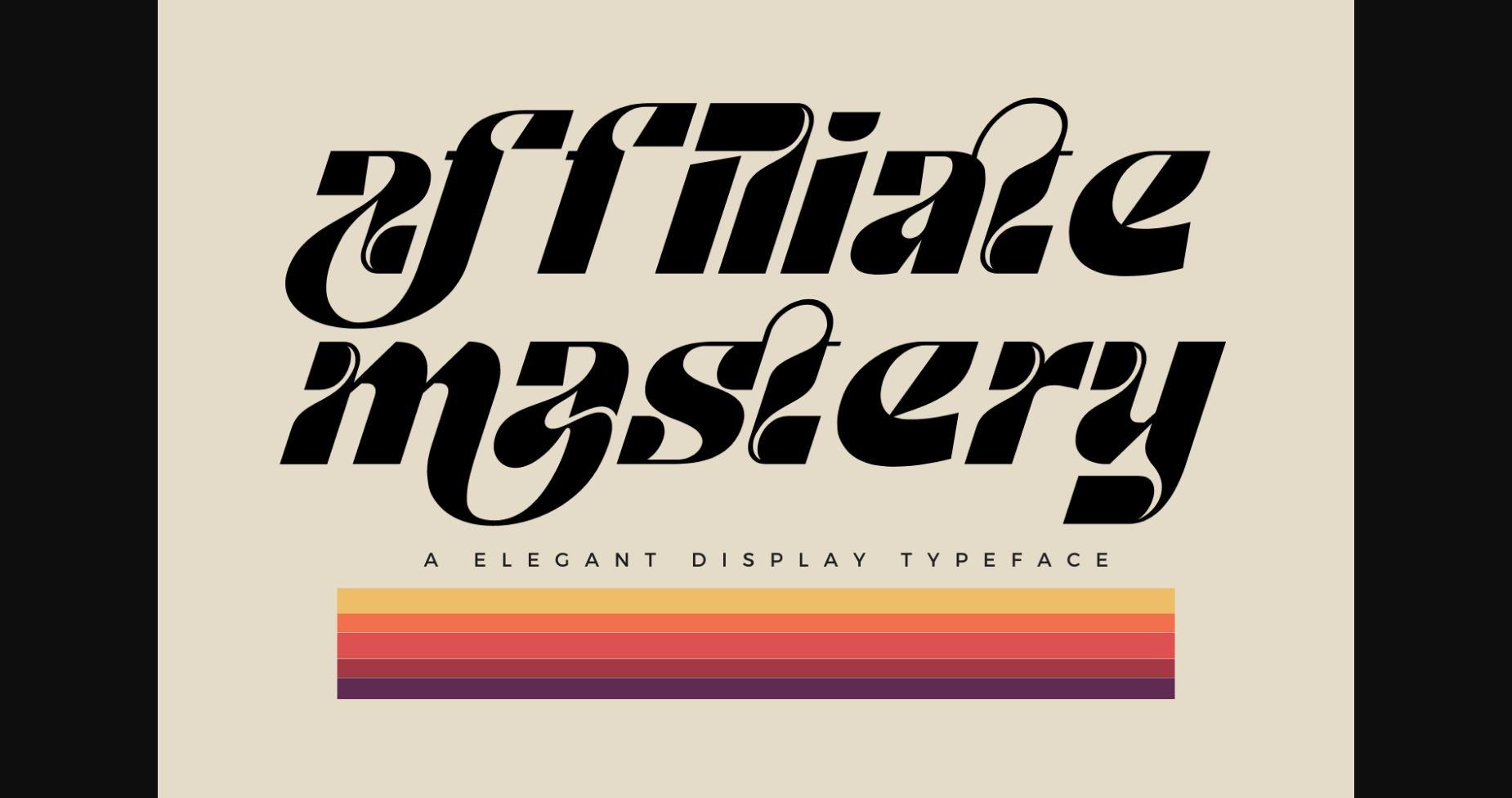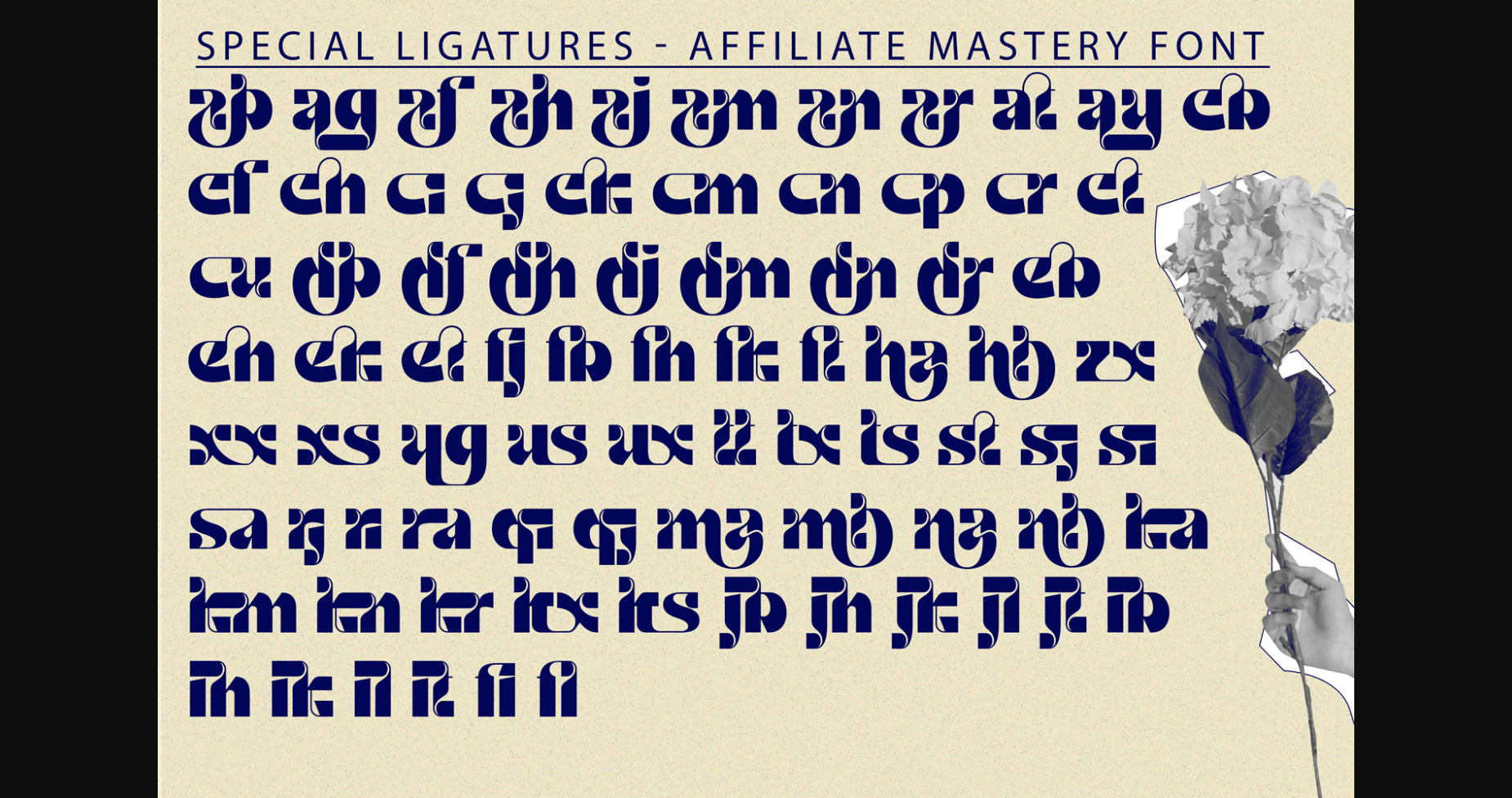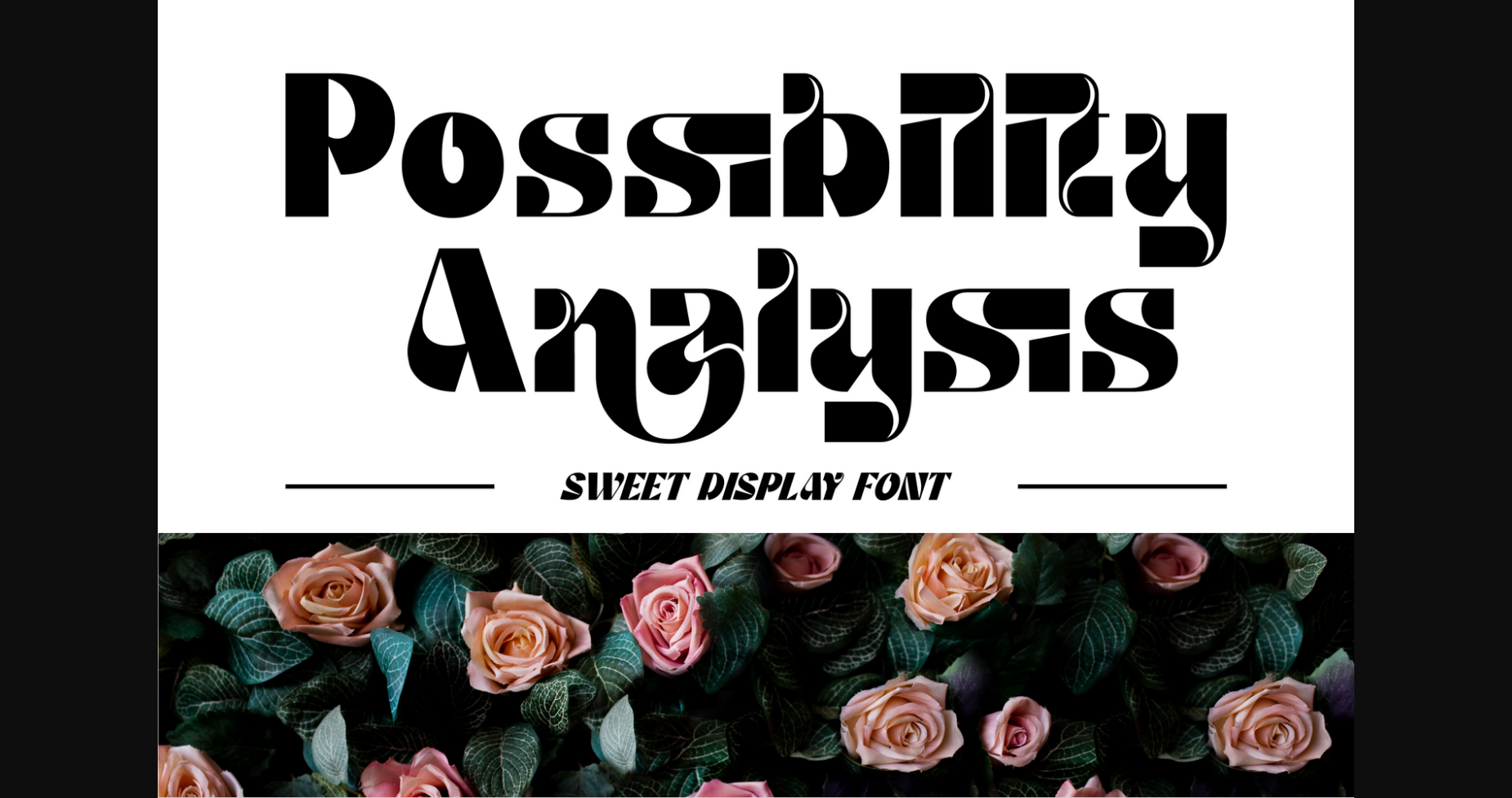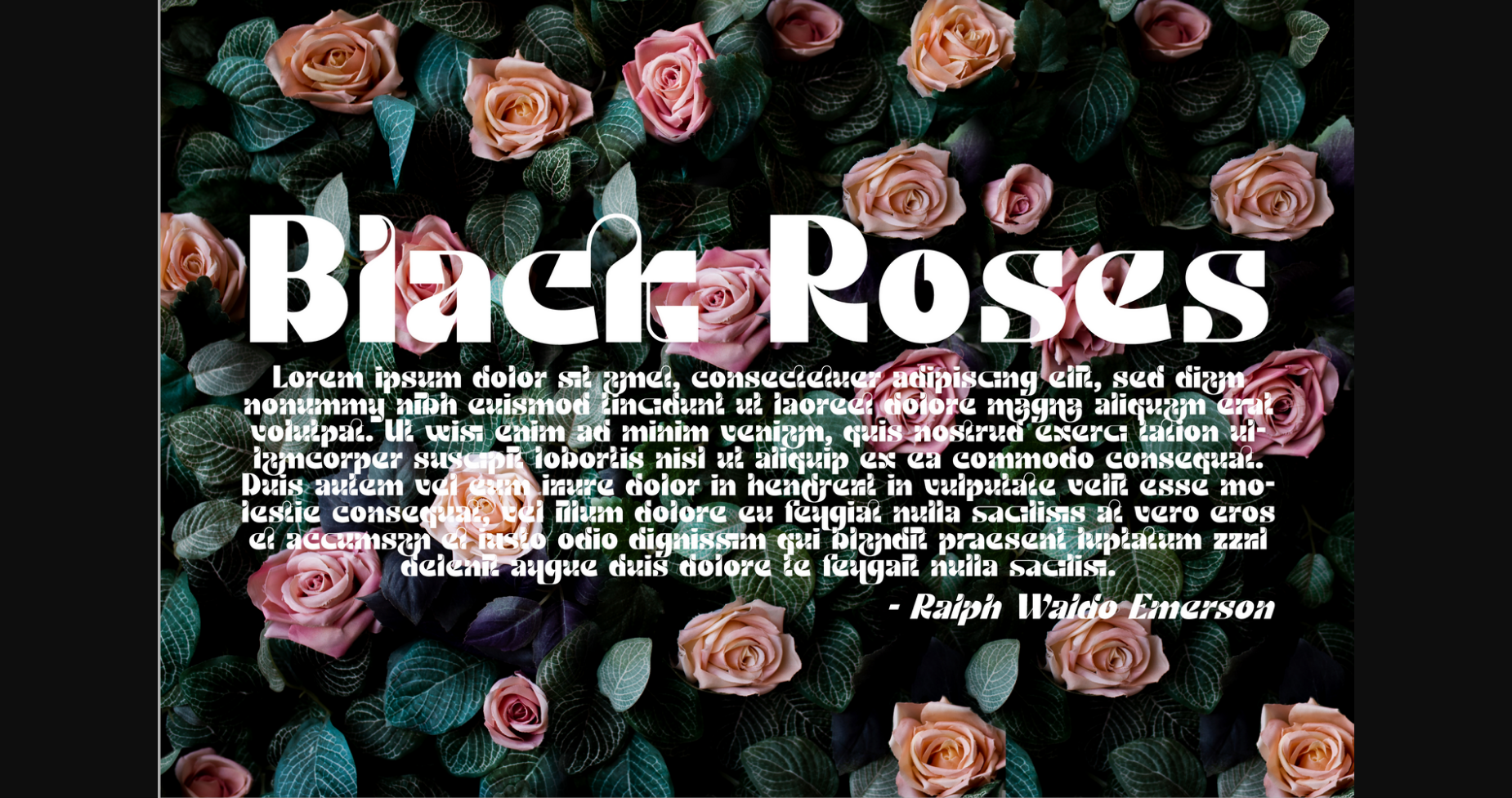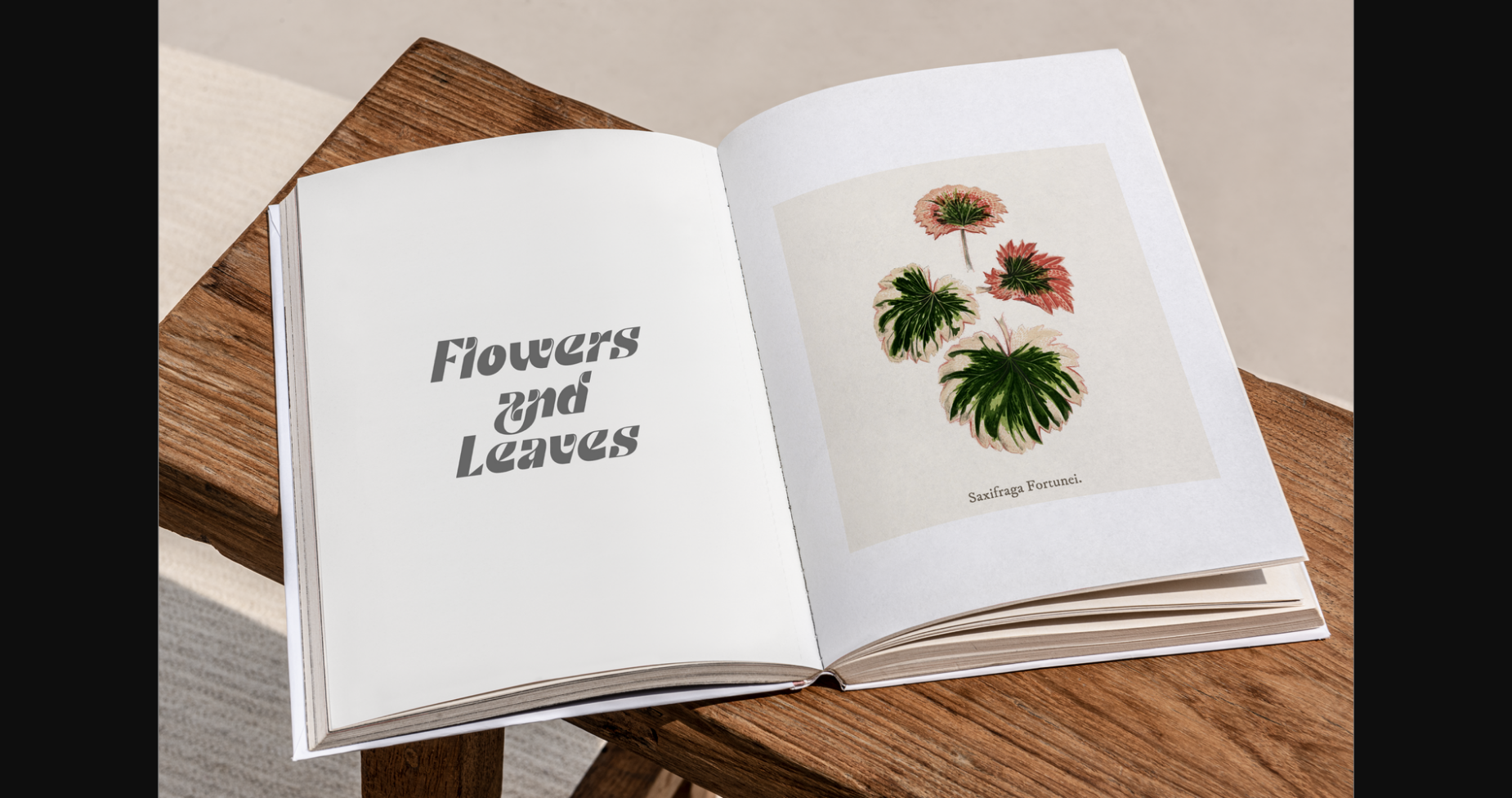
About Affiliate Mastery Font
Affiliate Mastery is a unique, elegant sans display font. Add this beautiful display font to each of your creative ideas and notice how it makes them stand out! This font is PUA encoded which means you can access all the glyphs and ligatures with ease!